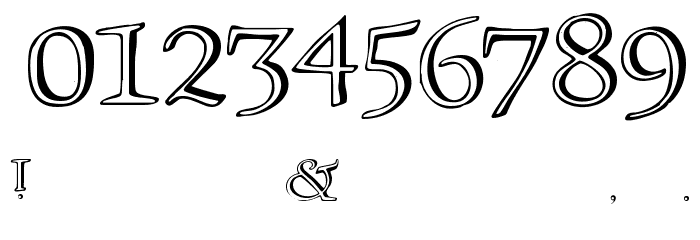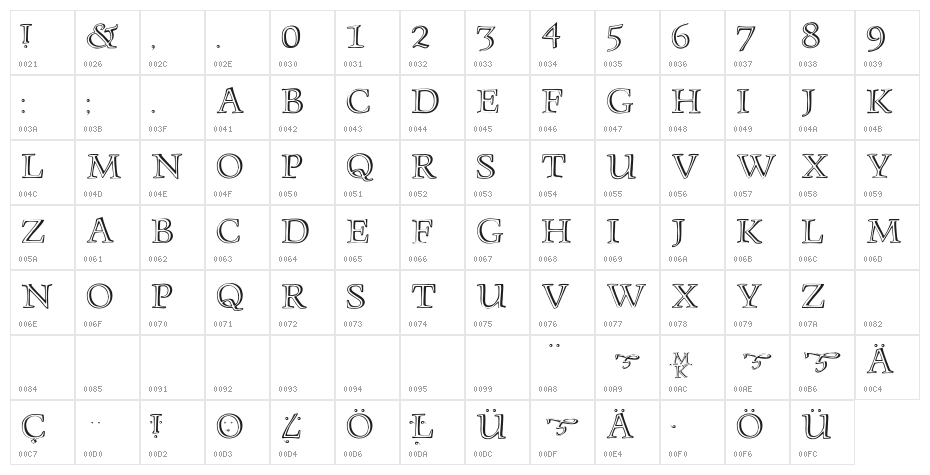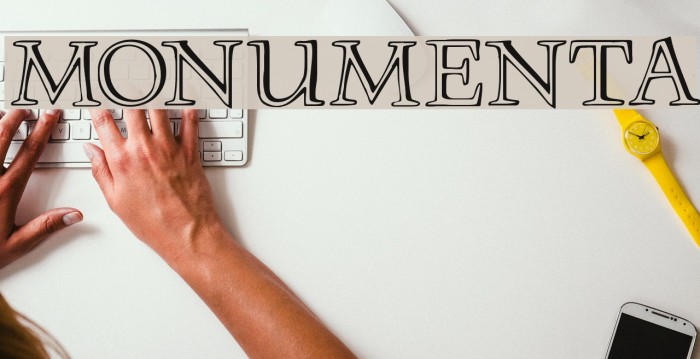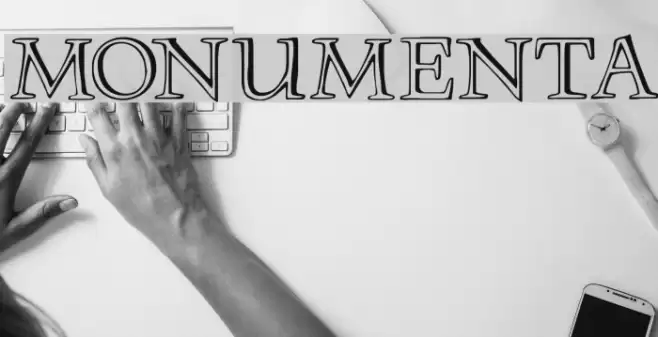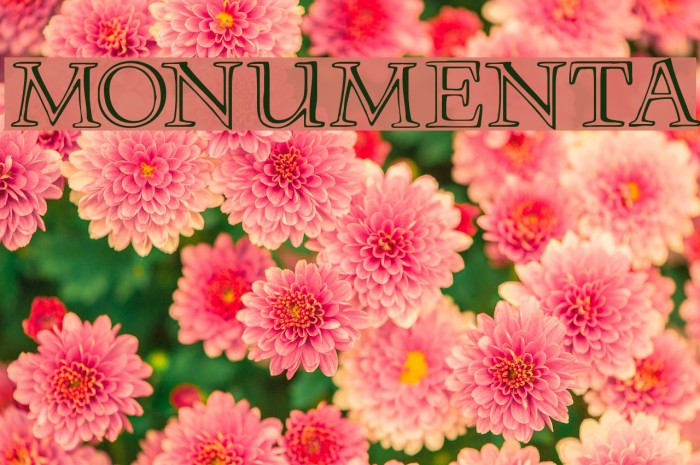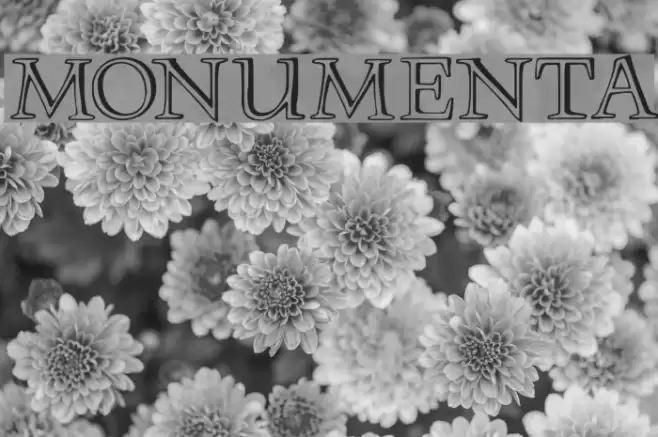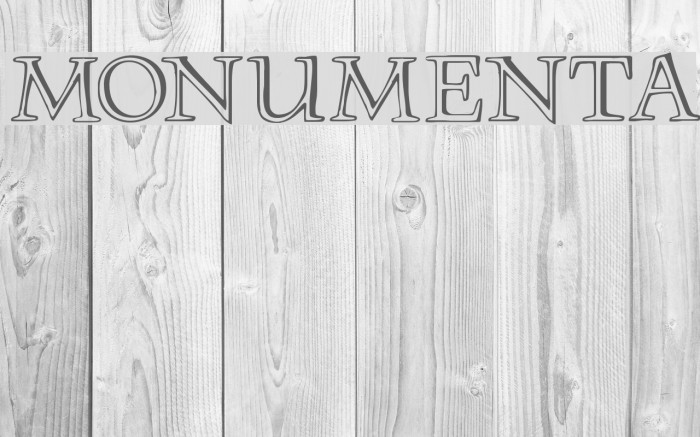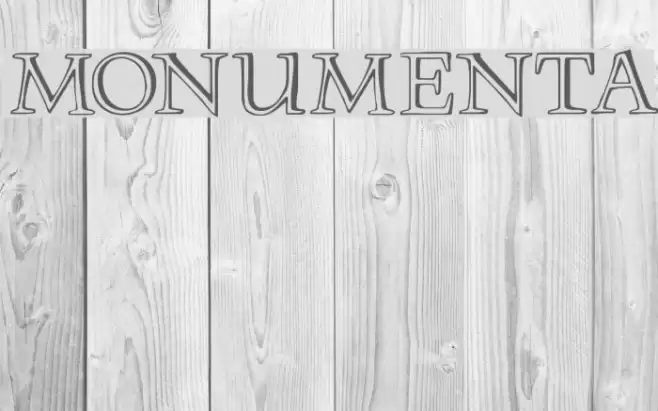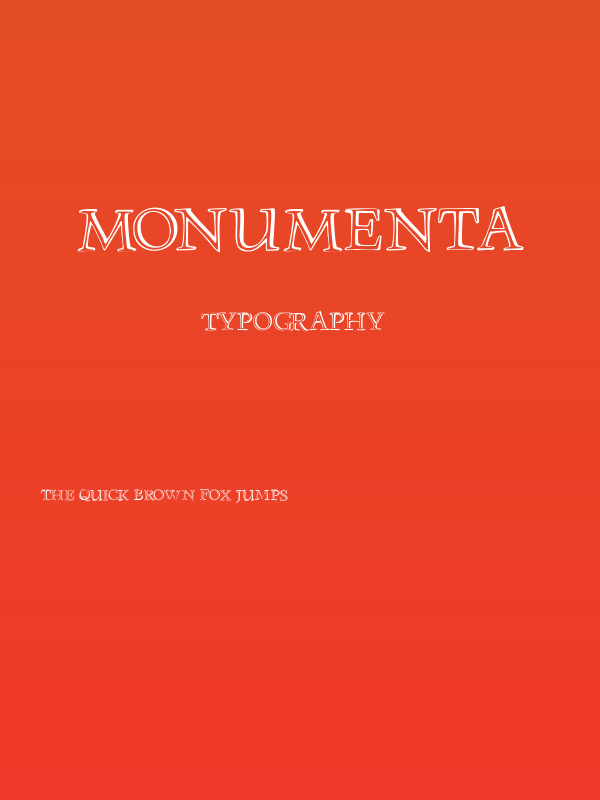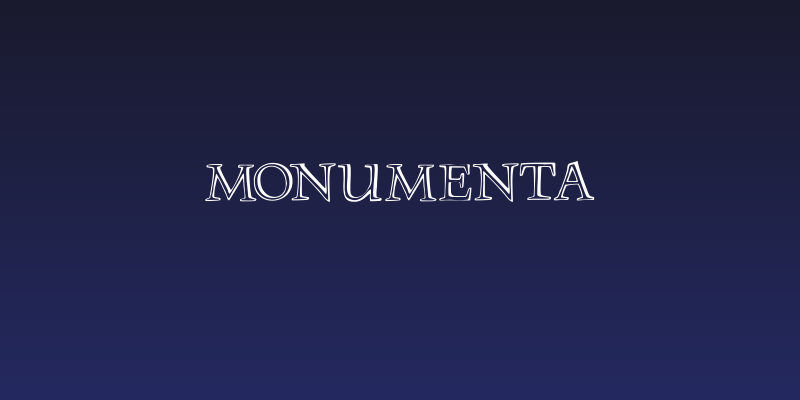
MonumentA Font
MonumentA Description
This font features a classic serif style with a modern twist, characterized by its elegant and refined letterforms. The uppercase letters are bold and commanding, with distinct serifs that add a touch of sophistication. The lowercase letters maintain a consistent style, offering a harmonious balance between tradition and contemporary design. The numerals are uniquely styled, providing a sense of grandeur and prominence. Special characters are thoughtfully designed to complement the overall aesthetic, making this font versatile for various applications.